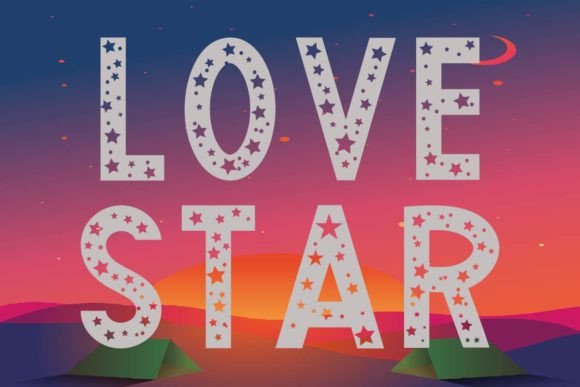
Are you looking for a way to add a touch of whimsy and personality to your designs? Look no further than Love Stars Font! This cute and fun decorative font is the perfect choice for anyone who wants to make their designs stand out.
Created by MDF, Love Stars Font is the ideal choice for anyone looking for a font for branding. It's perfect for wedding invitations, thank you cards, quotes, greeting cards, logos, business cards, and any other design that needs a handwritten touch. With its playful and friendly style, Love Stars Font is sure to make a lasting impression on anyone who sees it.